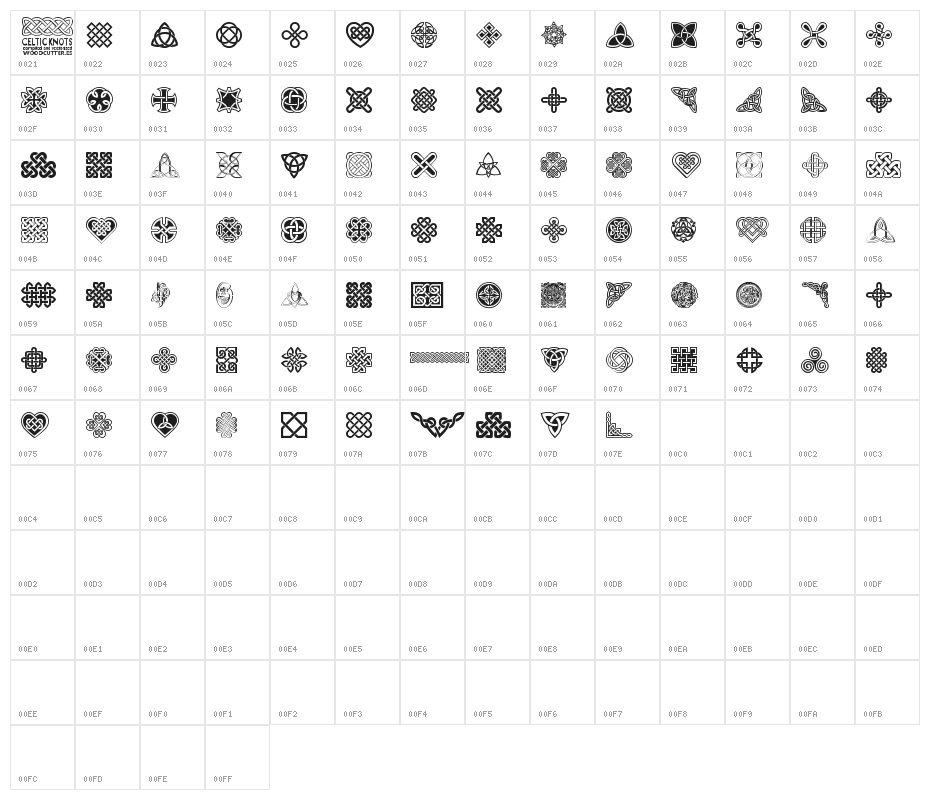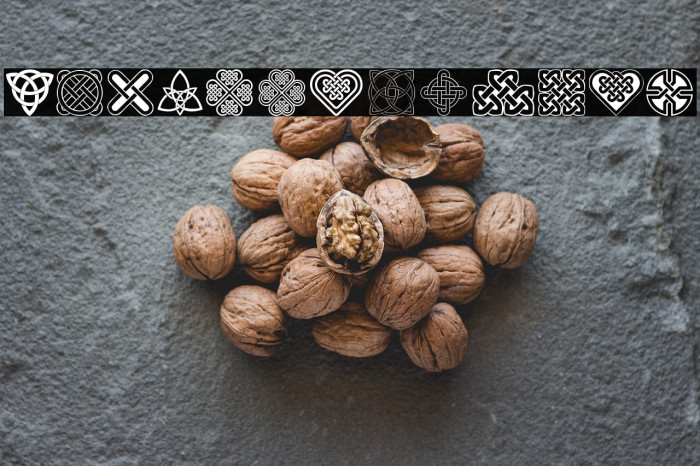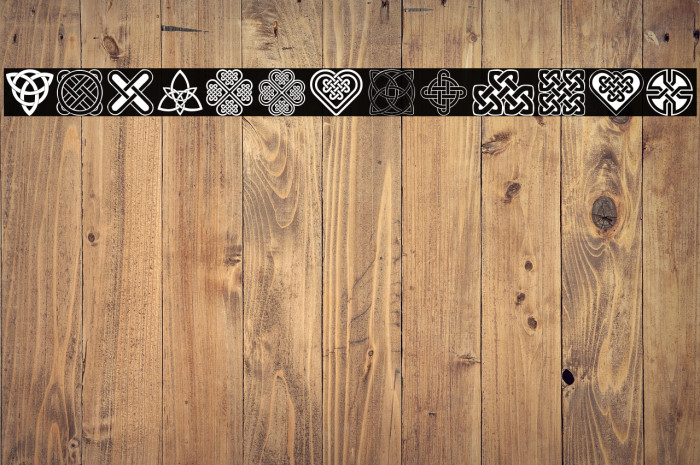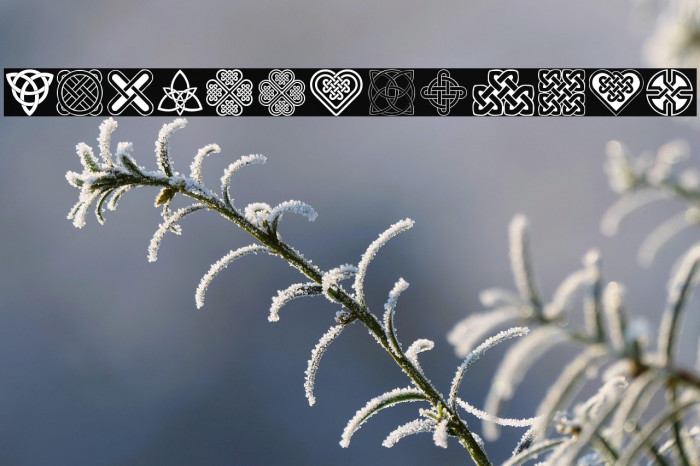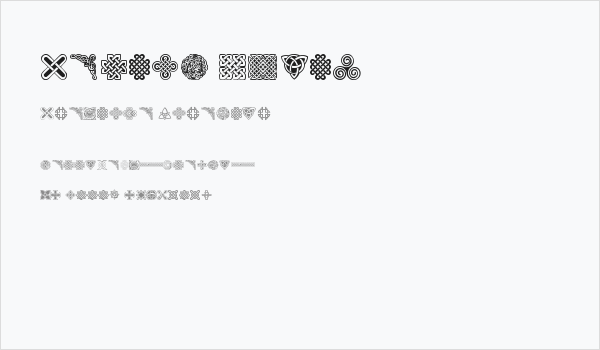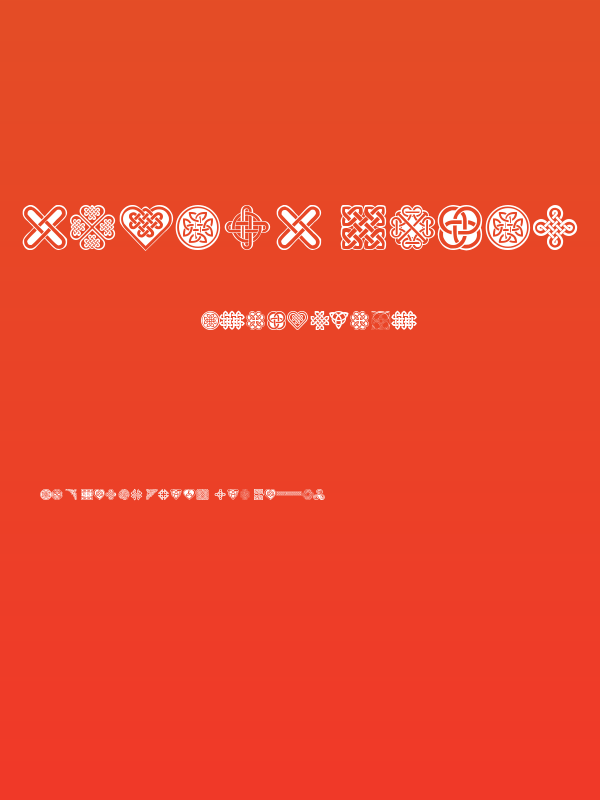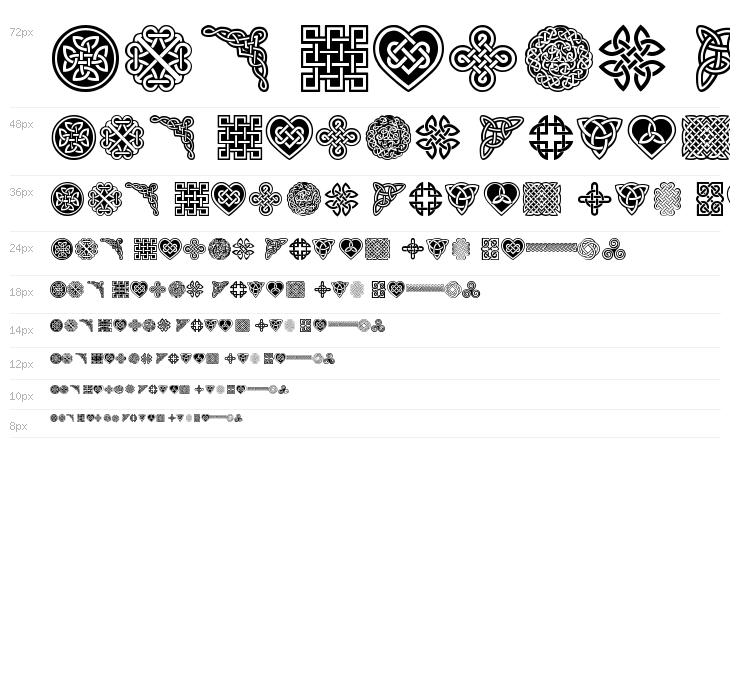
Celtic Knots Font
Celtic Knots Description
A decorative dingbat font featuring a wide variety of intricate Celtic knot designs, including interlaced patterns, hearts, circles, crosses, spirals, and triskelions. Each glyph is a unique ornamental symbol inspired by traditional Celtic art, rendered in bold black lines with high detail and contrast.
| Overall Style | Decorative, Traditional, Ethnic |
| Use Case | Logos, Decorative elements, Borders, Themed graphics |
| Proposed Projects | Book covers, tattoo designs, greeting cards, posters, branding for Celtic-themed events, decorative borders. |